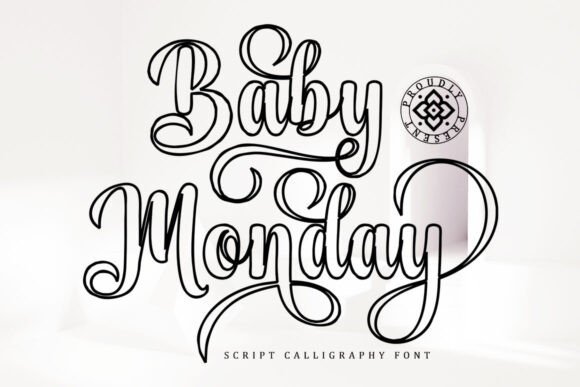
Baby Monday Outline Font: A Lovely and Timeless Handwritten Font
In the world of typography, fonts play a crucial role in conveying messages, expressing emotions, and creating visual identities. Among the numerous fonts available, Baby Monday Outline stands out as a lovely and timeless handwritten font that has gained popularity for its unique and beautiful touch. In this article, we will explore the features, benefits, and uses of Baby Monday Outline Font, and why it is an excellent choice for creating eye-catching logos, branding, and quotes.
What is Baby Monday Outline Font?
Baby Monday Outline Font is a handwritten font designed with a unique and beautiful touch. It is a lovely and timeless font that has been crafted to add a personal touch to designs, making them more relatable and engaging. The font features a distinctive outline style that sets it apart from other fonts, giving it a classic and elegant look.
Features of Baby Monday Outline Font
- Unique and Beautiful Touch: Every letter in Baby Monday Outline Font has a unique and beautiful touch, which makes it stand out from other fonts.
- Handwritten Style: The font has a handwritten style that gives it a personal and relatable feel.
- Outline Style: The font features a distinctive outline style that adds a classic and elegant touch to designs.
- Timeless: Baby Monday Outline Font is a timeless font that will not go out of style anytime soon.
Benefits of Using Baby Monday Outline Font
Using Baby Monday Outline Font offers several benefits, including:
- Eye-Catching Designs: The font’s unique and beautiful touch makes it perfect for creating eye-catching logos, branding, and quotes.
- Emotional Connection: The handwritten style of the font helps create an emotional connection with the audience, making designs more relatable and engaging.
- Versatility: Baby Monday Outline Font can be used for various design projects, including logos, branding, quotes, and more.
- Easy to Read: The font is easy to read, making it perfect for designs that require clear and concise communication.
Uses of Baby Monday Outline Font
Baby Monday Outline Font is a versatile font that can be used for various design projects, including:
- Logo Design: The font’s unique and beautiful touch makes it perfect for creating eye-catching logos that stand out.
- Branding: Baby Monday Outline Font can be used for branding projects, such as business cards, letterheads, and more.
- Quotes: The font’s elegant and classic look makes it perfect for creating inspirational quotes, posters, and social media graphics.
- Digital Marketing: The font can be used for digital marketing materials, such as email headers, social media graphics, and more.
Why Choose Baby Monday Outline Font?
There are several reasons why Baby Monday Outline Font is an excellent choice for designers and businesses:
- Unique and Beautiful: The font’s unique and beautiful touch sets it apart from other fonts, making it perfect for creating eye-catching designs.
- Timeless: Baby Monday Outline Font is a timeless font that will not go out of style anytime soon, making it a great investment for designers and businesses.
- Versatile: The font can be used for various design projects, making it a great addition to any design library.
Tips for Using Baby Monday Outline Font
Here are some tips for using Baby Monday Outline Font:
- Use it Sparingly: Use the font sparingly to make it stand out and avoid overwhelming the audience.
- Pair it with Other Fonts: Pair Baby Monday Outline Font with other fonts to create a unique and visually appealing design.
- Experiment with Colors: Experiment with different colors to find the perfect combination that complements the font.
- Keep it Simple: Keep the design simple and clean to let the font shine.
Baby Monday Outline Font is a lovely and timeless handwritten font that is perfect for creating eye-catching logos, branding, and quotes. Its unique and beautiful touch, combined with its versatility and ease of use, make it an excellent choice for designers and businesses. By following the tips outlined in this article, designers can make the most of Baby Monday Outline Font and create stunning designs that stand out.
- What is Baby Monday Outline Font? Baby Monday Outline Font is a handwritten font designed with a unique and beautiful touch.